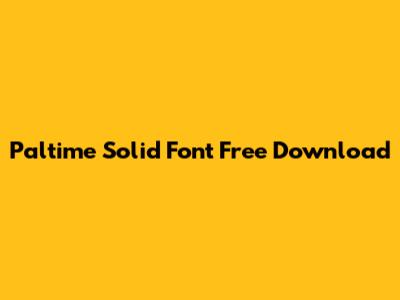
Paltime Solid Font: Free Download Guide
What is Paltime Solid Font?
Paltime Solid is a modern, versatile font known for its clean lines and solid structure. It's super popular in graphic design, branding, and even web design because it brings a contemporary and professional feel to any project. Its readability and aesthetic appeal make it a go-to choice for designers aiming to make a strong visual impact. The font's clarity ensures that text remains legible across various sizes and applications, from large headlines to smaller body text. This adaptability is a key reason why Paltime Solid is favored in both digital and print media. Moreover, its solid form provides a sense of stability and trustworthiness, which can be particularly valuable for brands looking to establish credibility. Designers also appreciate its compatibility with a wide range of design software and platforms, making it a hassle-free addition to their toolkit. Whether you're working on a sleek website, a bold marketing campaign, or elegant print materials, Paltime Solid can help elevate your design and communicate your message effectively. Its balanced design and timeless appeal ensure that it remains a relevant and stylish choice for years to come. The font's geometric construction lends it a modern edge, while its smooth curves add a touch of sophistication. By incorporating Paltime Solid into your projects, you're not just choosing a font; you're investing in a visual asset that enhances your overall design and strengthens your brand identity. So, if you're looking for a font that combines functionality with aesthetic appeal, Paltime Solid is definitely worth considering.
Key Features of Paltime Solid
• Clean and Modern Design: This font boasts a sleek, contemporary look that works wonders in various design contexts.
• High Readability: Paltime Solid is designed for clarity, making it easy to read in both headlines and body text.
• Versatile Use: From logos to websites, this font adapts seamlessly to different applications.
• Solid Structure: The solid form gives a sense of stability and professionalism, perfect for branding.
Why Use Paltime Solid Font?
Using the Paltime Solid font can significantly enhance your design projects. For starters, its modern aesthetic brings a contemporary edge, making your work look fresh and up-to-date. The font is incredibly versatile, fitting seamlessly into various design contexts, whether you're crafting a logo, designing a website, or putting together marketing materials. Its high readability ensures that your message is easily understood, which is crucial for effective communication. Moreover, Paltime Solid projects a sense of professionalism and stability, making it an excellent choice for branding purposes. The font's clean lines and solid structure convey trustworthiness, helping to build a strong and reliable brand image. In addition, Paltime Solid is designed to work well across different media, both digital and print, ensuring consistency in your visual communication. Its adaptability means you can use it for everything from large headlines to small body text without losing clarity or impact. Designers appreciate its compatibility with a wide range of software and platforms, making it a practical and efficient choice for any project. By choosing Paltime Solid, you're not just selecting a font; you're investing in a tool that enhances your overall design and strengthens your brand identity. Its balanced design and timeless appeal ensure that it remains a relevant and stylish choice for years to come. Whether you're aiming for a minimalist look or a bold statement, Paltime Solid can help you achieve your design goals with confidence and style. So, if you're looking to elevate your designs and communicate your message effectively, Paltime Solid is definitely a font to consider.
Enhancing Brand Identity
Paltime Solid is particularly effective for branding due to its ability to convey reliability and modernity. A consistent font choice helps solidify your brand's visual identity, making it more recognizable and memorable.
Improving Readability
With its clear and distinct letterforms, Paltime Solid enhances the readability of your content, ensuring that your message is easily understood by your audience. This is especially important for websites and marketing materials where clarity is key.
Using Paltime Solid Font in Design Projects
Once you've got Paltime Solid font installed, it's time to put it to work in your design projects! This font is super versatile, so you can use it in a bunch of different ways. For logos, Paltime Solid can give your brand a modern and professional look. Its clean lines make it easy to read, even at smaller sizes, which is perfect for ensuring your logo is recognizable. When designing websites, use Paltime Solid for headings and body text to create a cohesive and readable design. Its clear letterforms make it easy for visitors to read your content, improving their overall experience. In marketing materials like brochures and posters, Paltime Solid can help you grab attention and convey your message effectively. Use it for headlines to make a bold statement, and for body text to ensure your information is clear and concise. If you're working on social media graphics, Paltime Solid can help your posts stand out. Its modern aesthetic will catch the eye of your followers, and its readability will ensure they understand your message. When creating presentations, use Paltime Solid to make your slides look professional and polished. Its clean design will help you convey your information clearly and effectively. To make the most of Paltime Solid, experiment with different weights and styles. Use the bold weight for headlines to make them stand out, and the regular weight for body text to ensure readability. Adjust the letter spacing and line height to optimize the font's appearance in your specific design. By incorporating Paltime Solid into your projects, you can elevate your designs and create a strong visual impact. Its versatility and modern aesthetic make it a valuable asset for any designer. So, go ahead and start experimenting with Paltime Solid in your next project – you'll love the results!